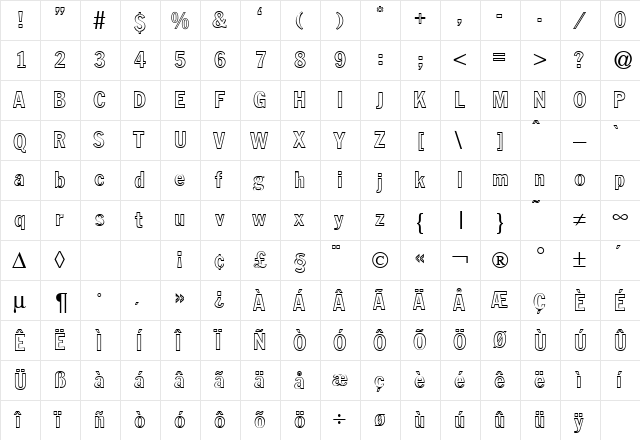
FranklinHeadlineCondOut DB Bold Font Preview
FranklinHeadlineCondOut DB Bold
Design Context for FranklinHeadlineCondOut DB Typeface
FranklinHeadlineCondOut DB is a composed and adaptable typeface that performs quietly and consistently across a wide range of design contexts. Its bold stroke weight gives it real presence on the page. Its narrow stance lets it pack a punch even in space-constrained designs.